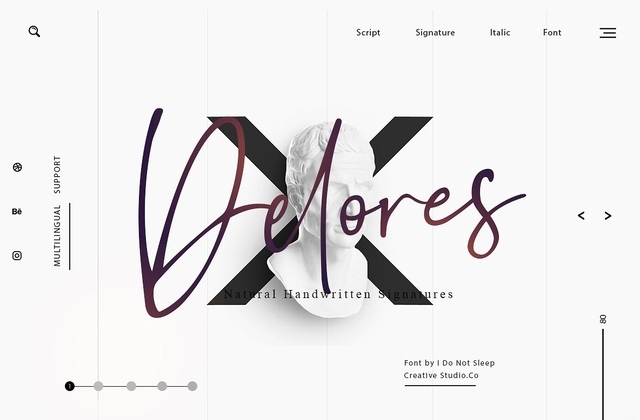
Delores Signature Font
The Delores Signature Font excels in sophisticated design applications including vintage-inspired branding, classic boutique logos, timeless wedding invitations, heritage product packaging, elegant business correspondence, artistic portfolios, nostalgic greeting cards, refined social media graphics, traditional signage, and distinguished marketing materials. Its classic script style makes it perfect for projects requiring timeless elegance that communicates heritage and establishes authentic connections with audiences seeking vintage charm and enduring sophistication.
What makes the Delores Signature Font truly exciting is its exceptional ability to capture the grace and elegance of mid-century handwriting with remarkable authenticity. The font features beautifully crafted letterforms with vintage-inspired flourishes and classic proportions that create a distinctly nostalgic appearance. Each character displays masterful attention to period detail with smooth curves, graceful connections, and timeless spacing that give text a genuinely vintage quality. The font's classic character and rhythmic flow evoke memories of elegant correspondence from bygone eras while maintaining contemporary usability.
The Delores Signature Font family typically includes regular weight with extensive character coverage, featuring uppercase and lowercase letters, numerals, punctuation marks, and international characters. The typeface often incorporates stylistic alternates, contextual ligatures, and vintage-inspired swashes that enhance its signature authenticity. These additional glyphs provide designers with creative flexibility to customize text appearance and achieve more natural-looking classic handwriting that reflects the font's timeless and heritage character.
This distinguished signature font captivates audiences through its remarkable balance of vintage charm and modern functionality. Unlike artificially aged fonts that can appear contrived, Delores Signature Font possesses genuine character that resonates with audiences who appreciate authentic vintage aesthetics. The font's classic appearance makes it ideal for heritage brands, vintage-inspired projects, and timeless applications where connecting with traditional values and enduring beauty is essential for building emotional resonance with target audiences.